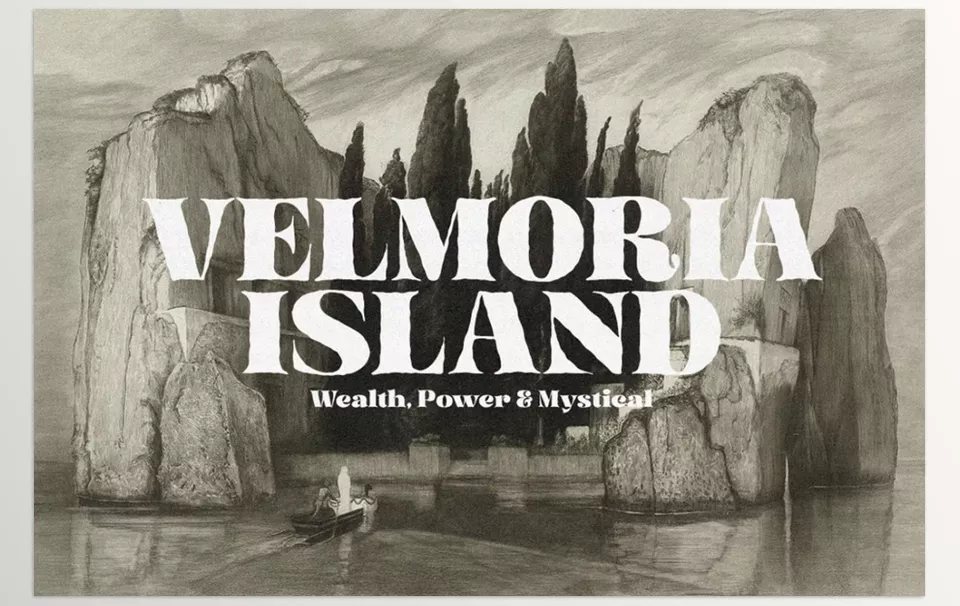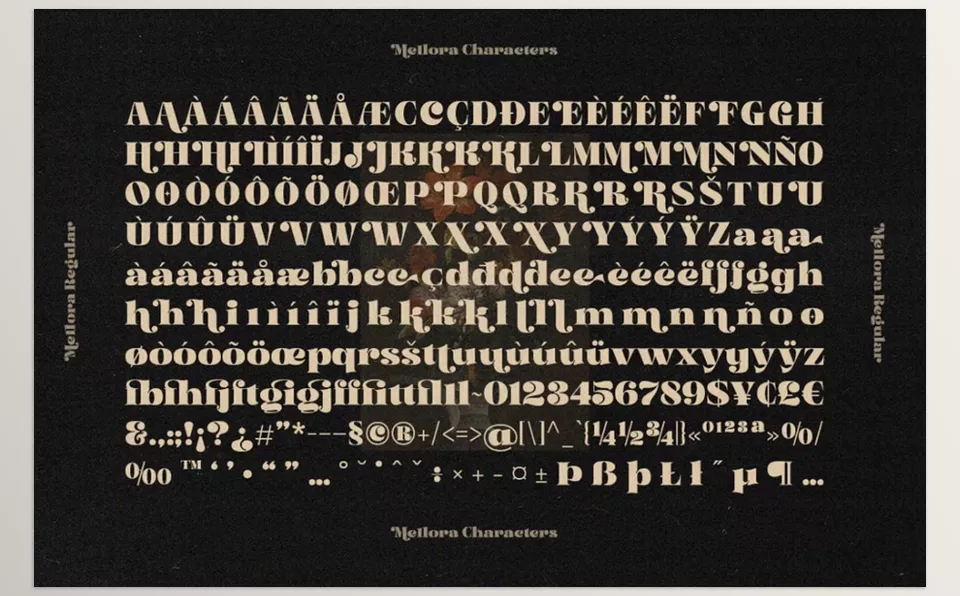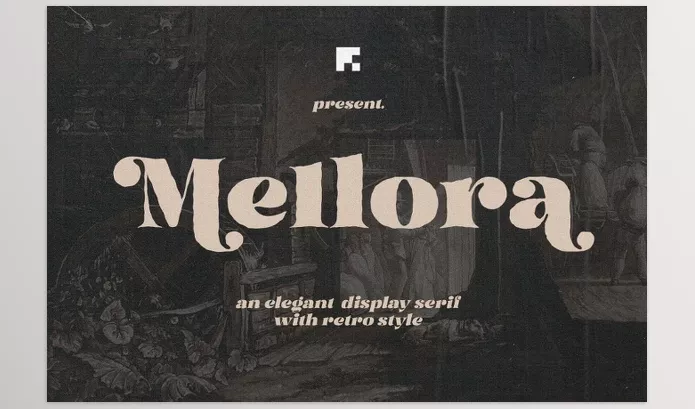
Mellora Display Serif is a beautiful calm and elegant serif font that is crafted to perfection. Available in a retro sans display regular, oblique, and italic forms, it complements countless design projects.
Fargun Studio – Mellora Display Serif Features
• Elegant Design: Smooth curves and graceful, fully rounded characters give a sophisticated look.
• Versatile Styles: Offers regular, oblique, and italic styles to suit diverse design needs.
• Retro Aesthetic: Infuses projects with a classic, timeless feel.
• Ten Unique Styles: Allows for creative combinations and engaging typography.
• Best suited for Different projects: Essays, magazines, and logo posters come to life.
• Improve Clarity: To enhance visual harmony and readability.
Preview Mellora Display Serif
Image 1: Witnesses the elegance it adds to the headlines.
Mellora Display Serif - Witnesses the elegance it adds to the headlines.
Image 2: Transforms logos and layouts remarkably and seamlessly for a diverse design.
Mellora Display Serif - Transforms logos and layouts remarkably and seamlessly for a diverse design.